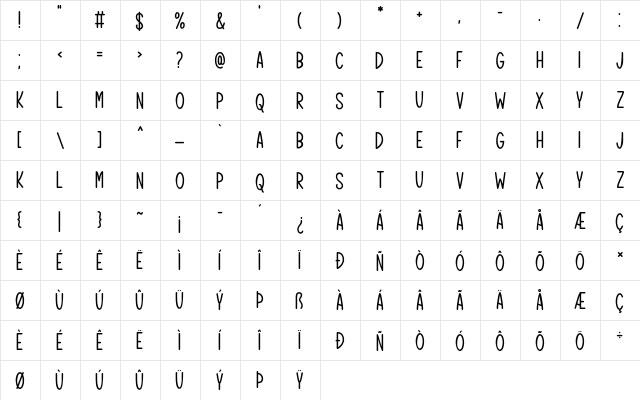
Cherish Today Regular
Design Context for Cherish Today Typeface
Cherish Today offers clean, dependable letterforms without strong stylistic allegiance, making it a practical choice for designers who need flexibility.
Pro Tip: Use Cherish Today in both headline and body roles to test its range before committing to a single application.